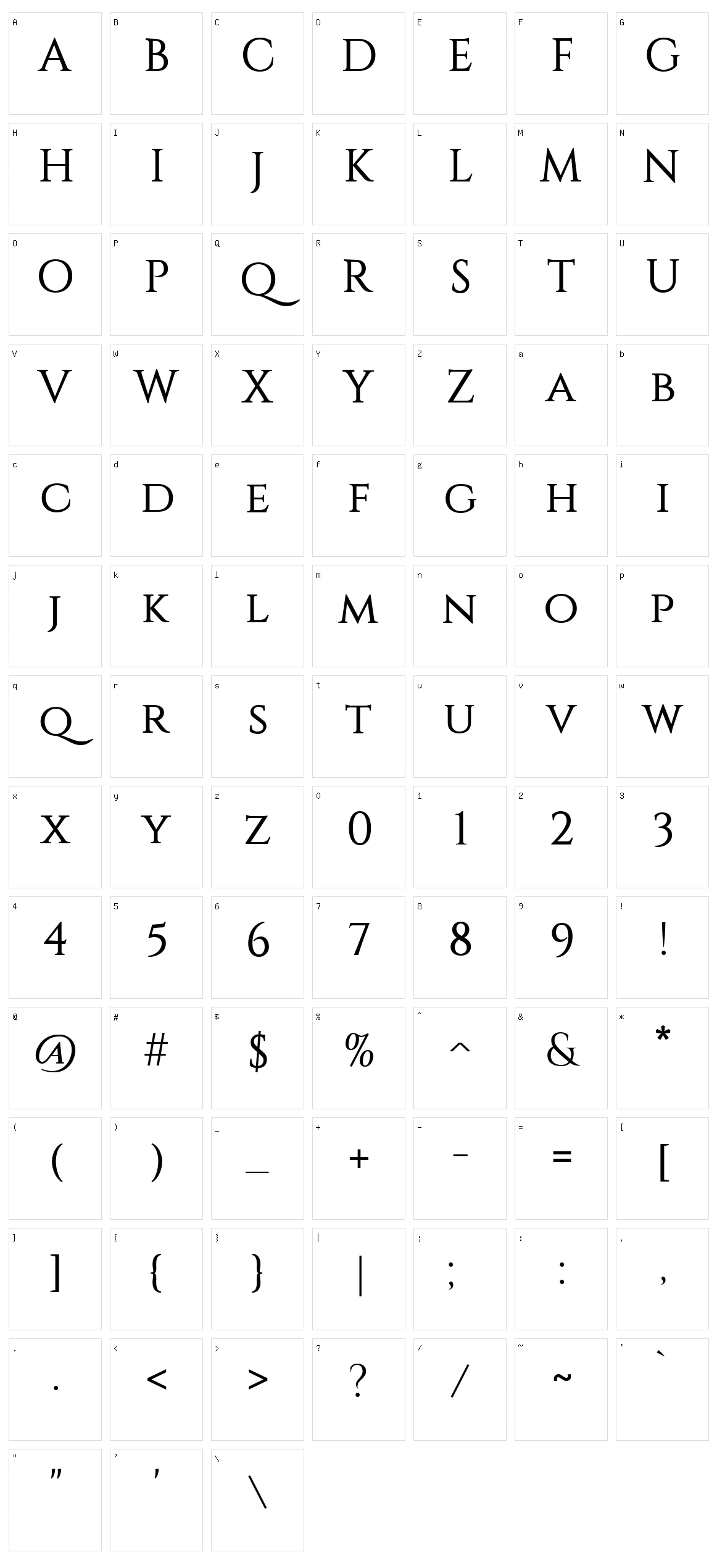
Constantine is roman style typeface inspired by emperor Constantine the Great.
He was born in nowadays Serbia, in city Naissus (Nish) and ruled from 306 to 337 AD.
Font is based on Cinzel with full serbian and cyrillic support, including the Chi Rho symbol.